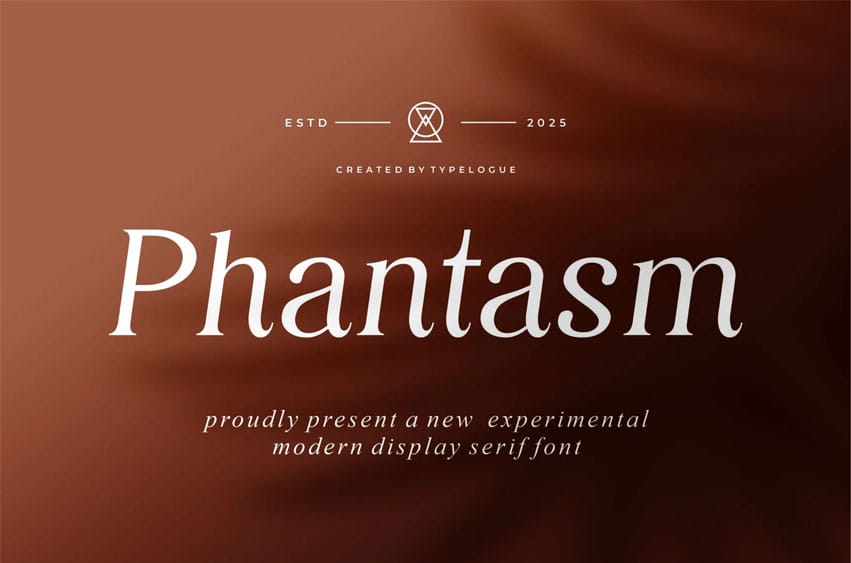
Phantasm Font is a refined modern serif font designed to blend elegance with artistic experimentation. Every letterform is crafted with graceful curves and high contrast, making it ideal for luxury branding, editorial designs, logos, and high-end packaging. What makes Phantasm stand out is its subtle modern twist—while retaining classic serif beauty, it introduces experimental shapes that add personality and sophistication. The result is a font that feels both timeless and contemporary.